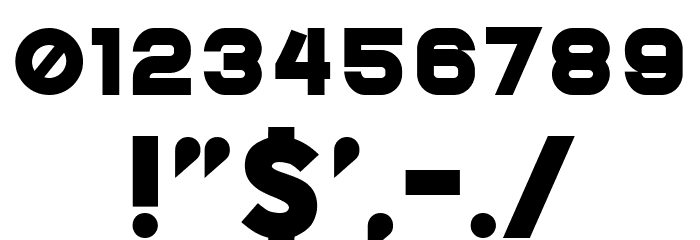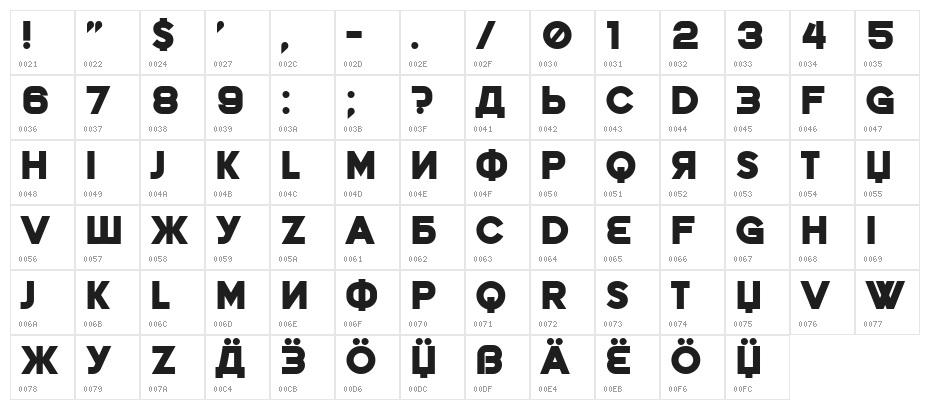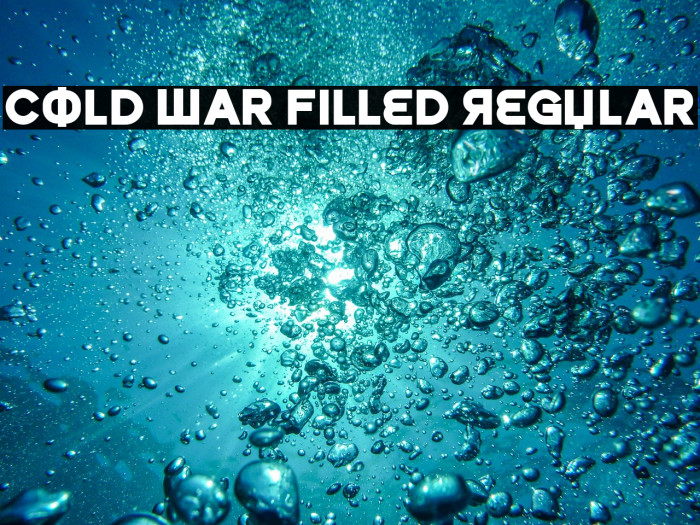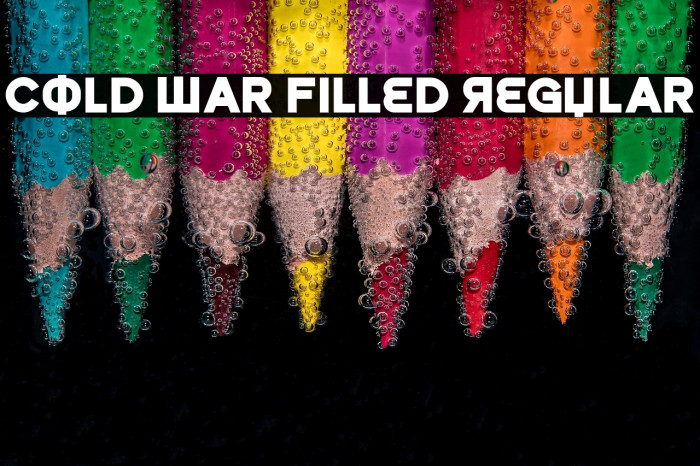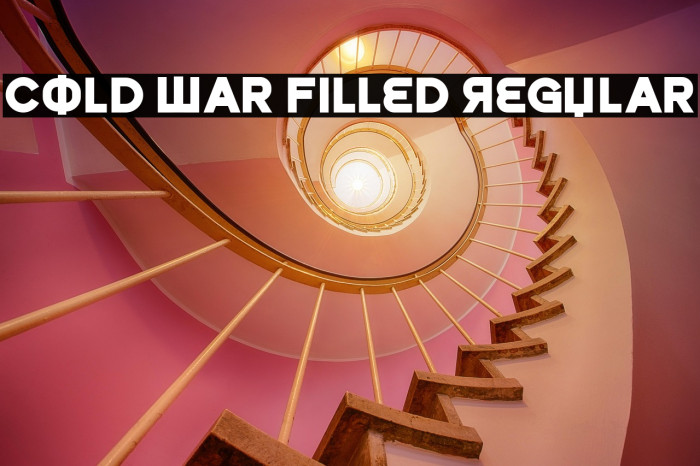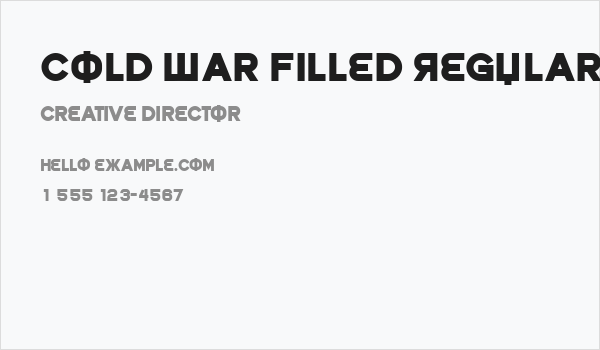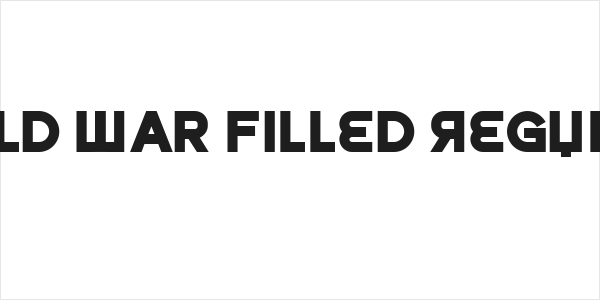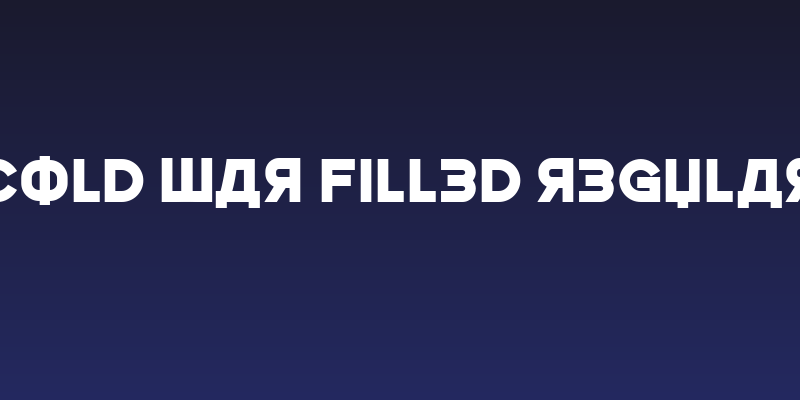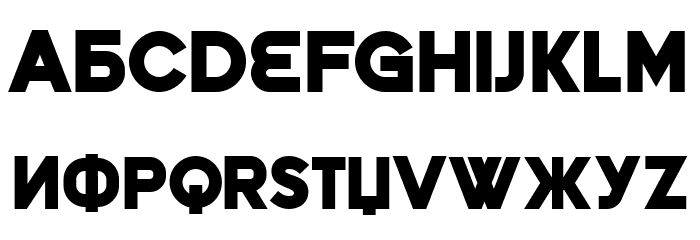
Cold War Filled Regular Font
Cold War Filled Regular Description
This bold and impactful font features a geometric and blocky design, reminiscent of mid-20th-century styles. The uppercase letters are strikingly bold with a uniform stroke width, creating a strong visual presence. The lowercase letters maintain the same boldness, ensuring consistency across text. Numbers are equally robust, with a distinct, modern feel. Special characters are designed to match the overall aesthetic, providing a cohesive look. The font's design is ideal for making a statement, with its clear, legible characters that stand out in any context.